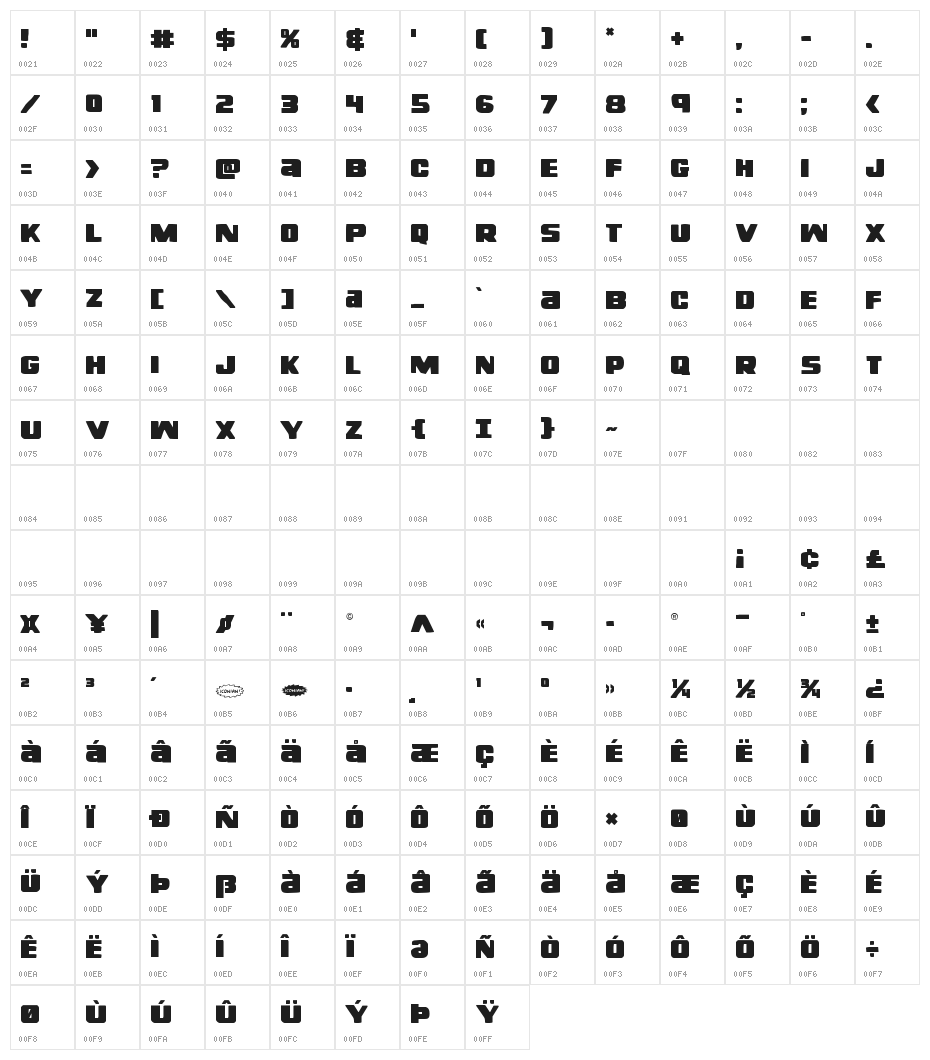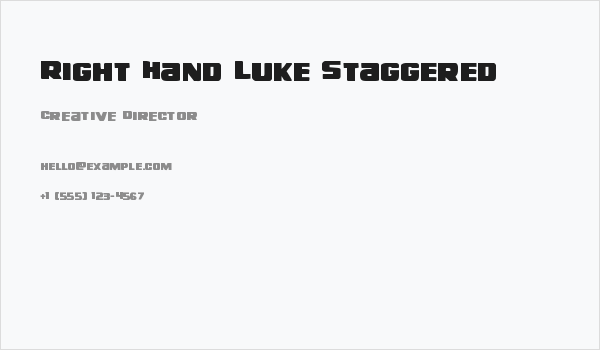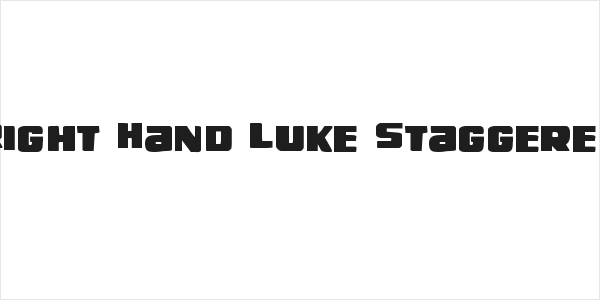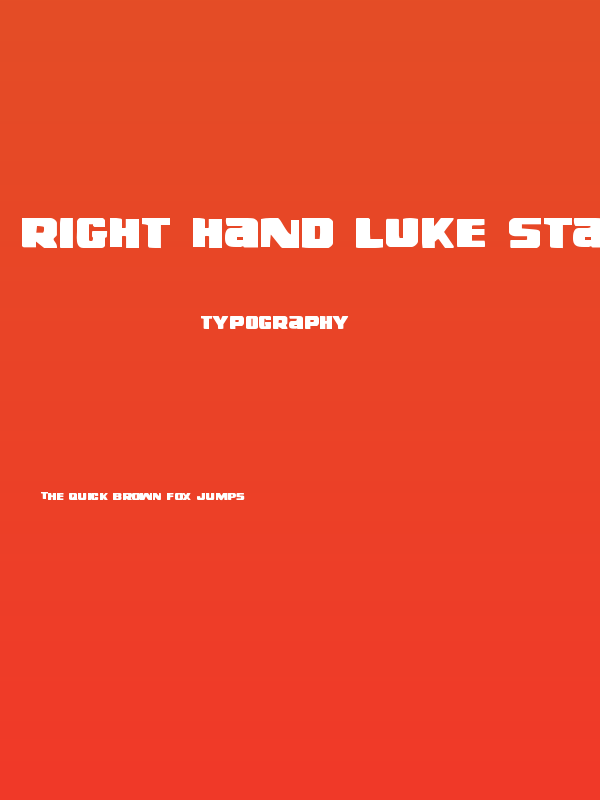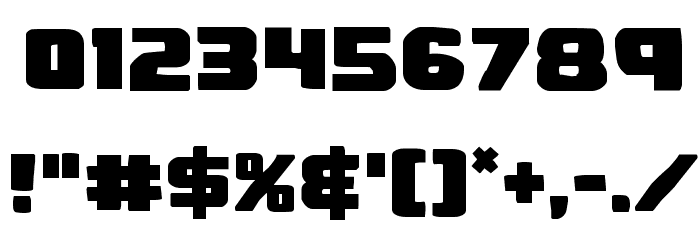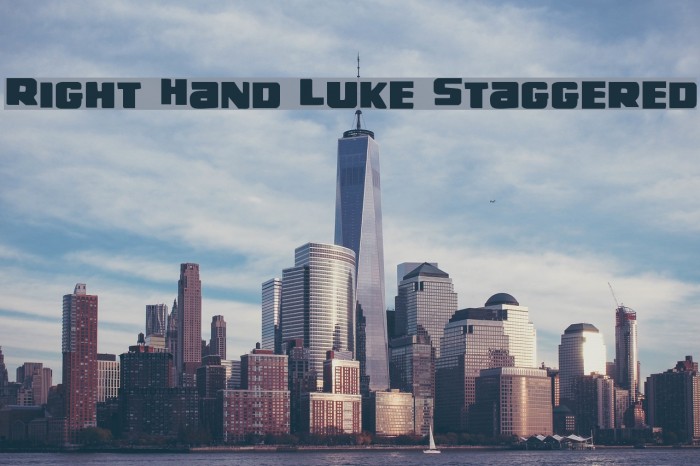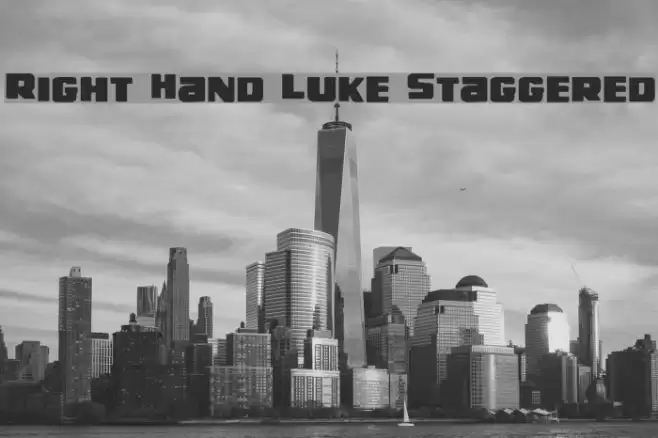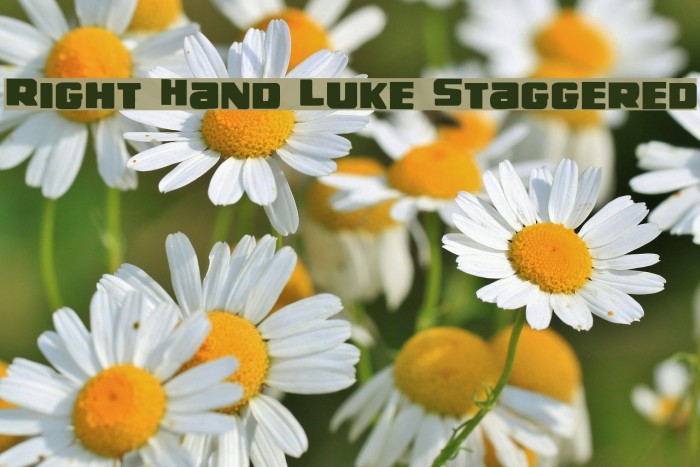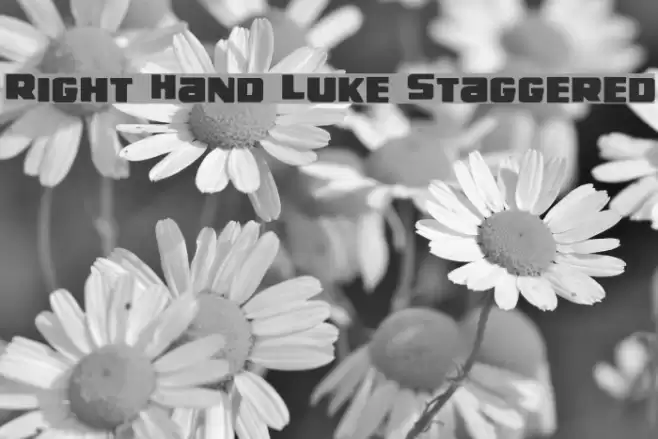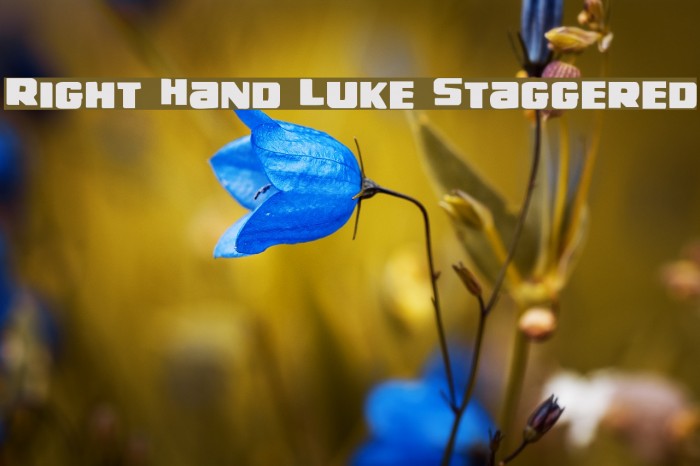
Right Hand Luke Staggered Font
Right Hand Luke Staggered Description
This bold and impactful font features a strong, geometric design with a staggered, block-like appearance. The characters are uniformly thick, creating a sense of stability and strength. The uppercase and lowercase letters maintain a consistent height, contributing to a cohesive look. The numbers and special characters are designed to match the boldness of the alphabet, ensuring uniformity across all text. The font's style is reminiscent of industrial or urban themes, making it suitable for projects that require a robust and eye-catching typeface.
| Proposed Projects | Ideal for posters, logos, headlines, and branding materials that require a strong visual impact. |